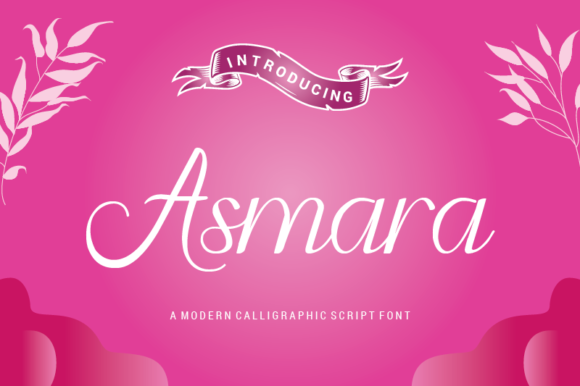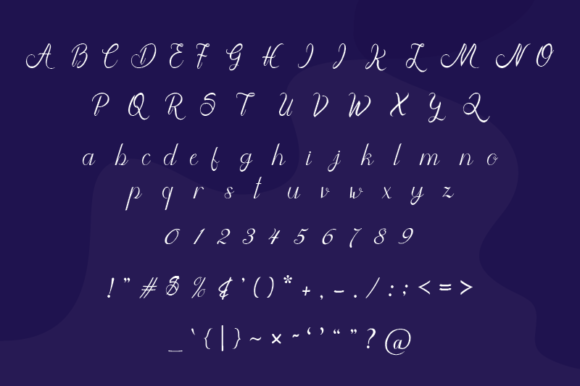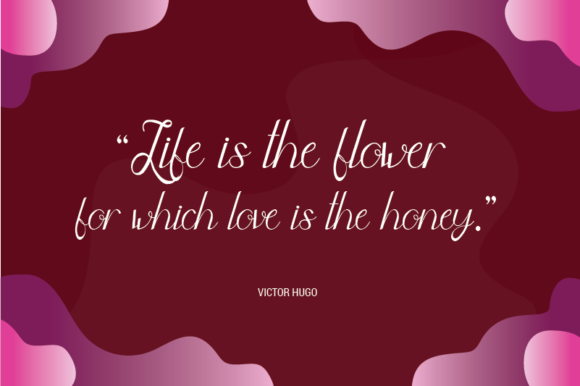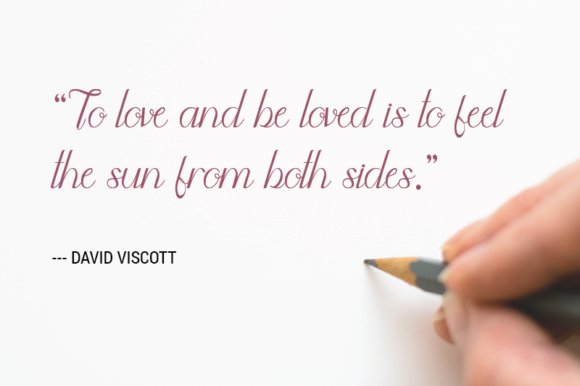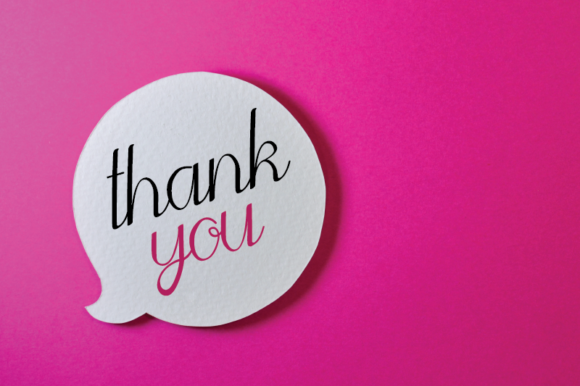
Asmara Font
About Asmara Font
Asmara is a beautiful script font, carefully handcrafted to become a true favorite. Its casual charm makes it appear wonderfully down-to-earth, readable and, ultimately, incredibly versatile.Get inspired by its authentic feel and use it to create gorgeous wedding invitations, beautiful stationary art, eye-catching social media posts, and cute greeting cards.